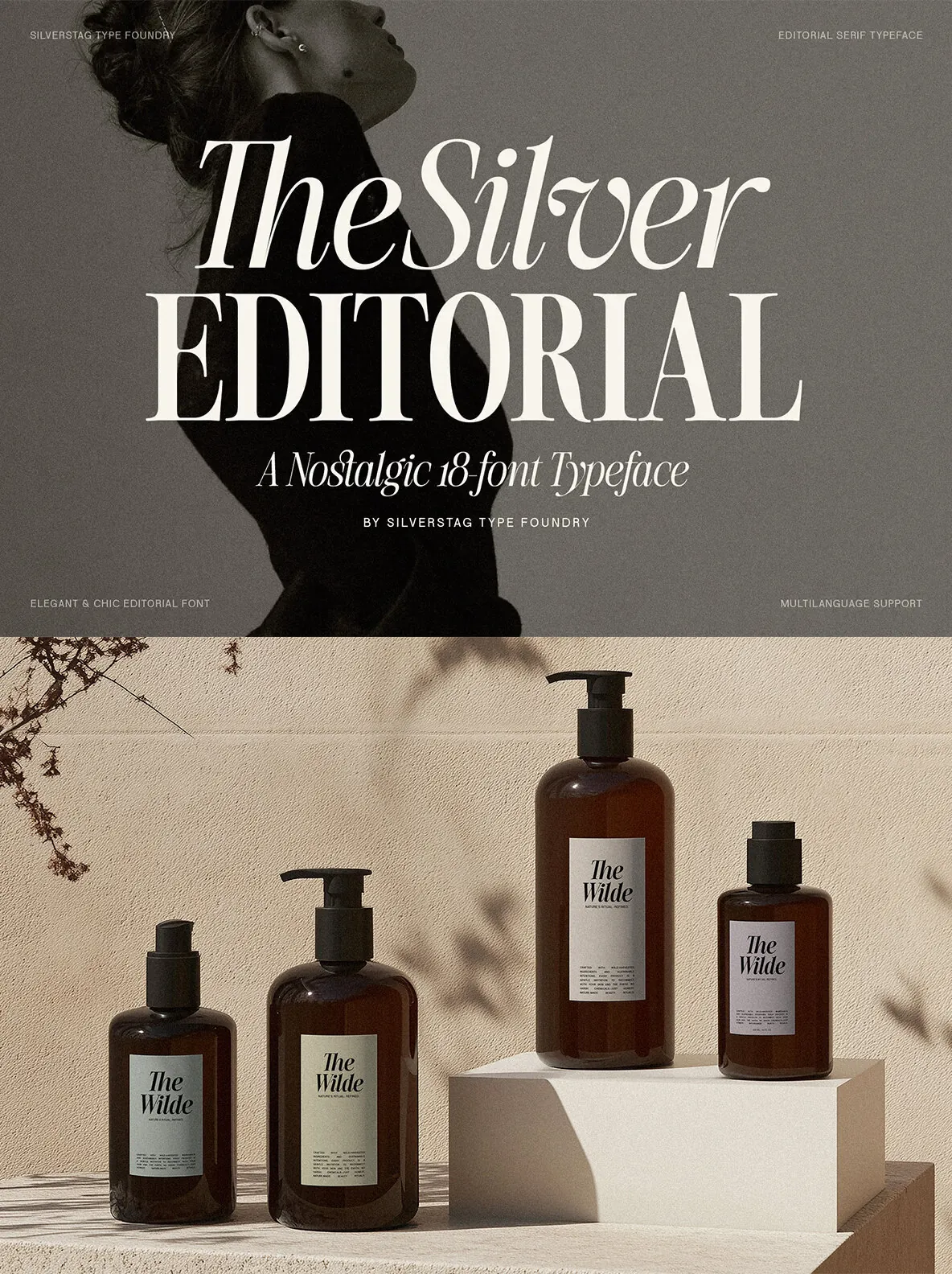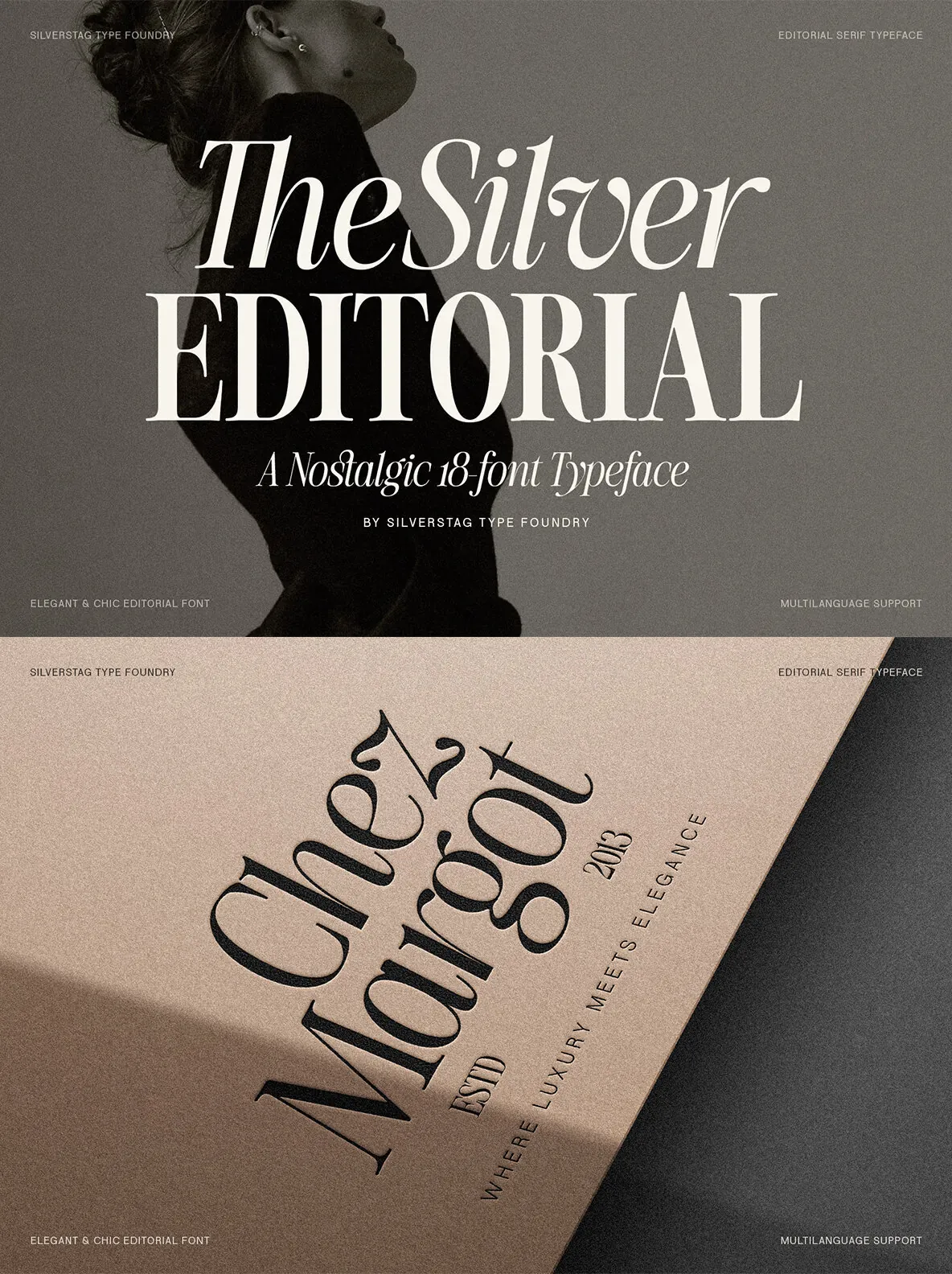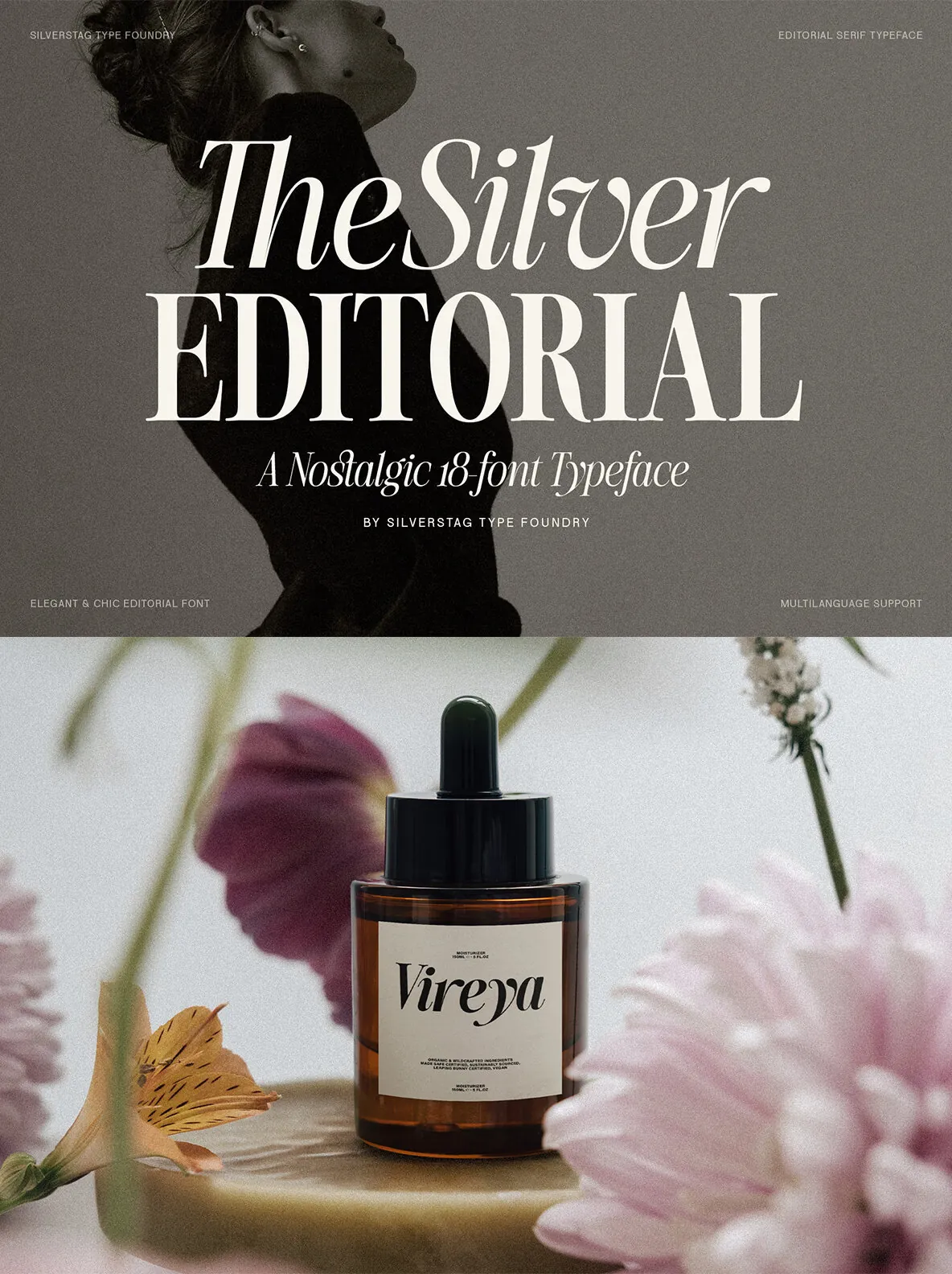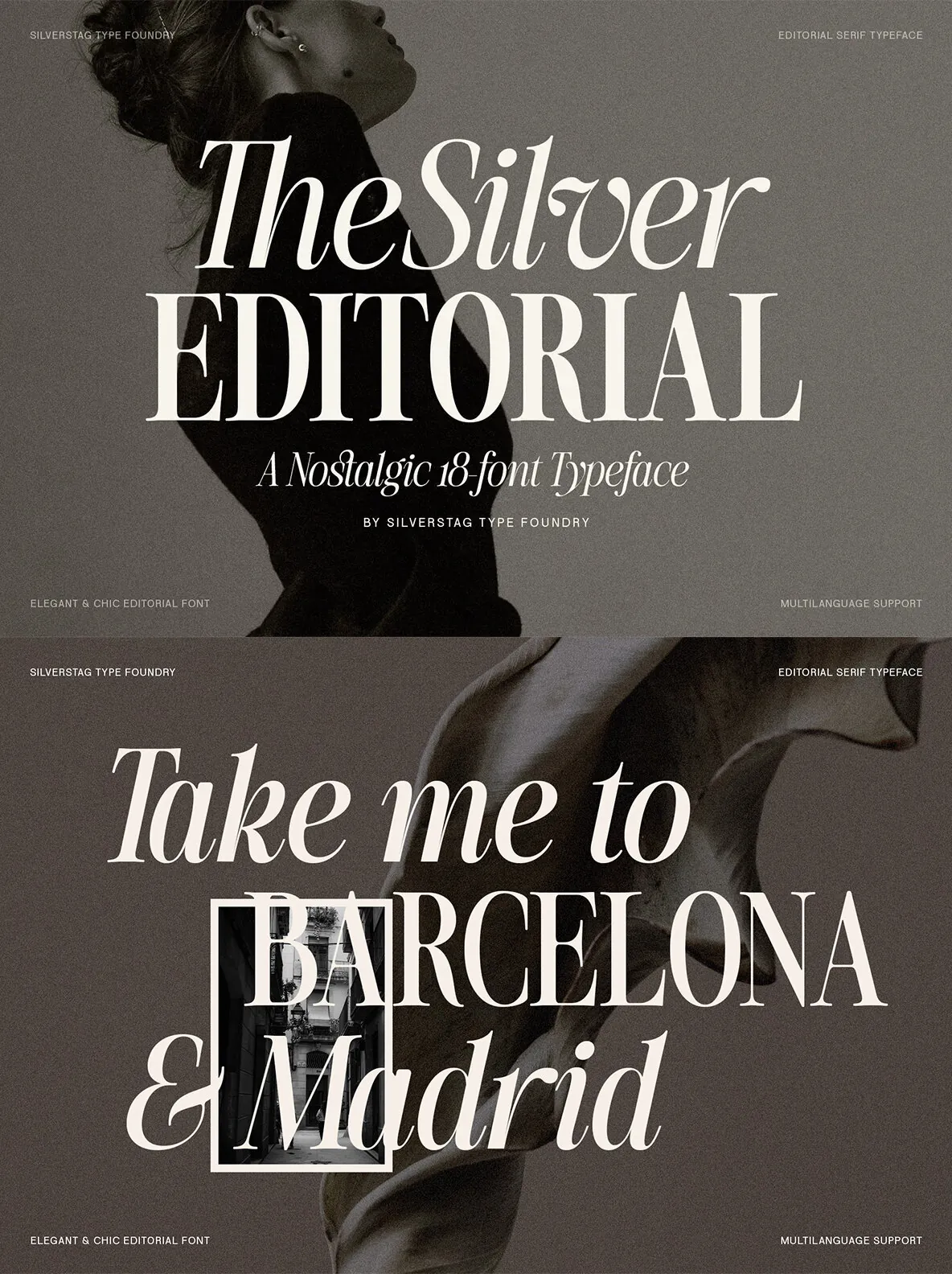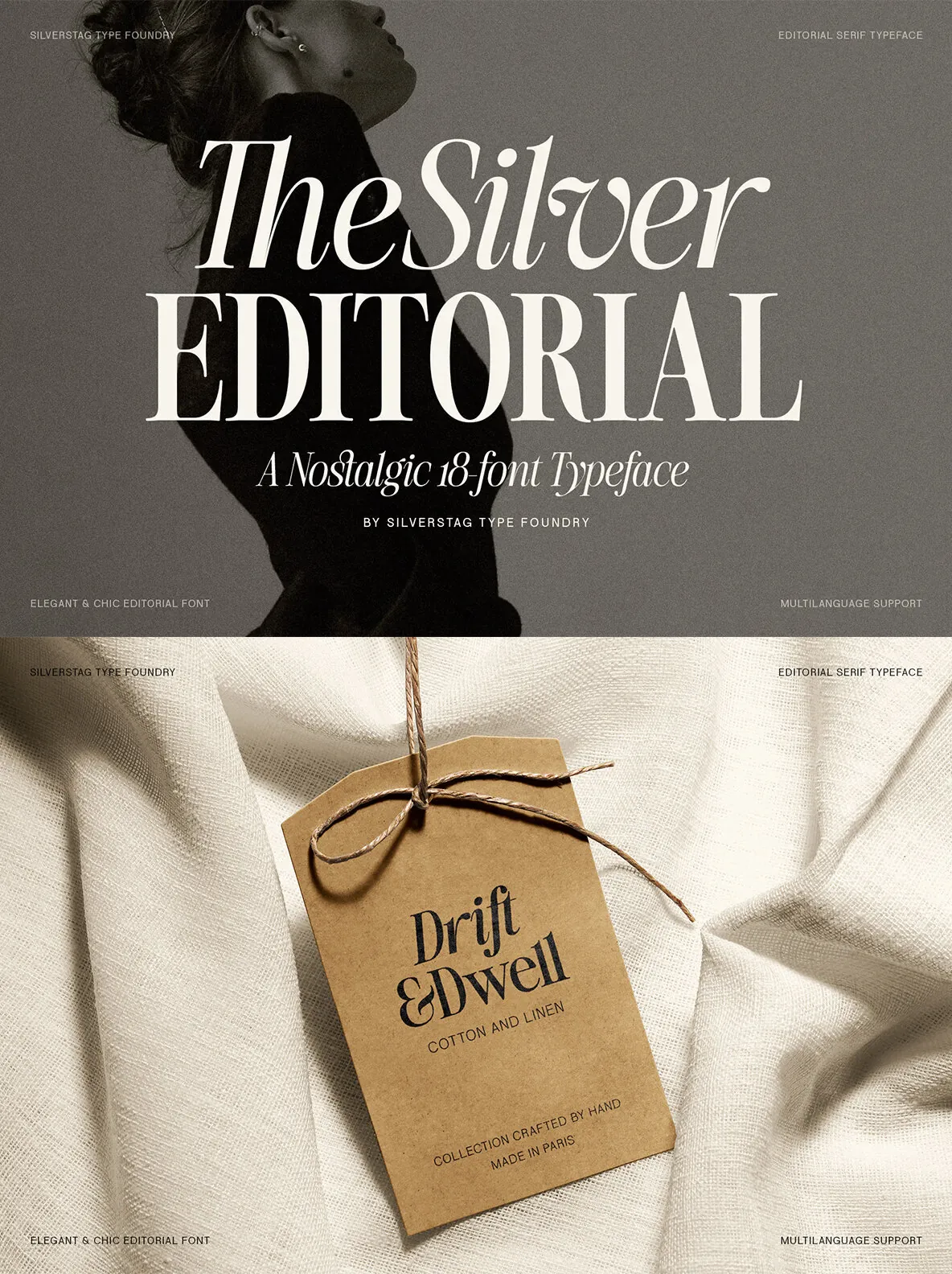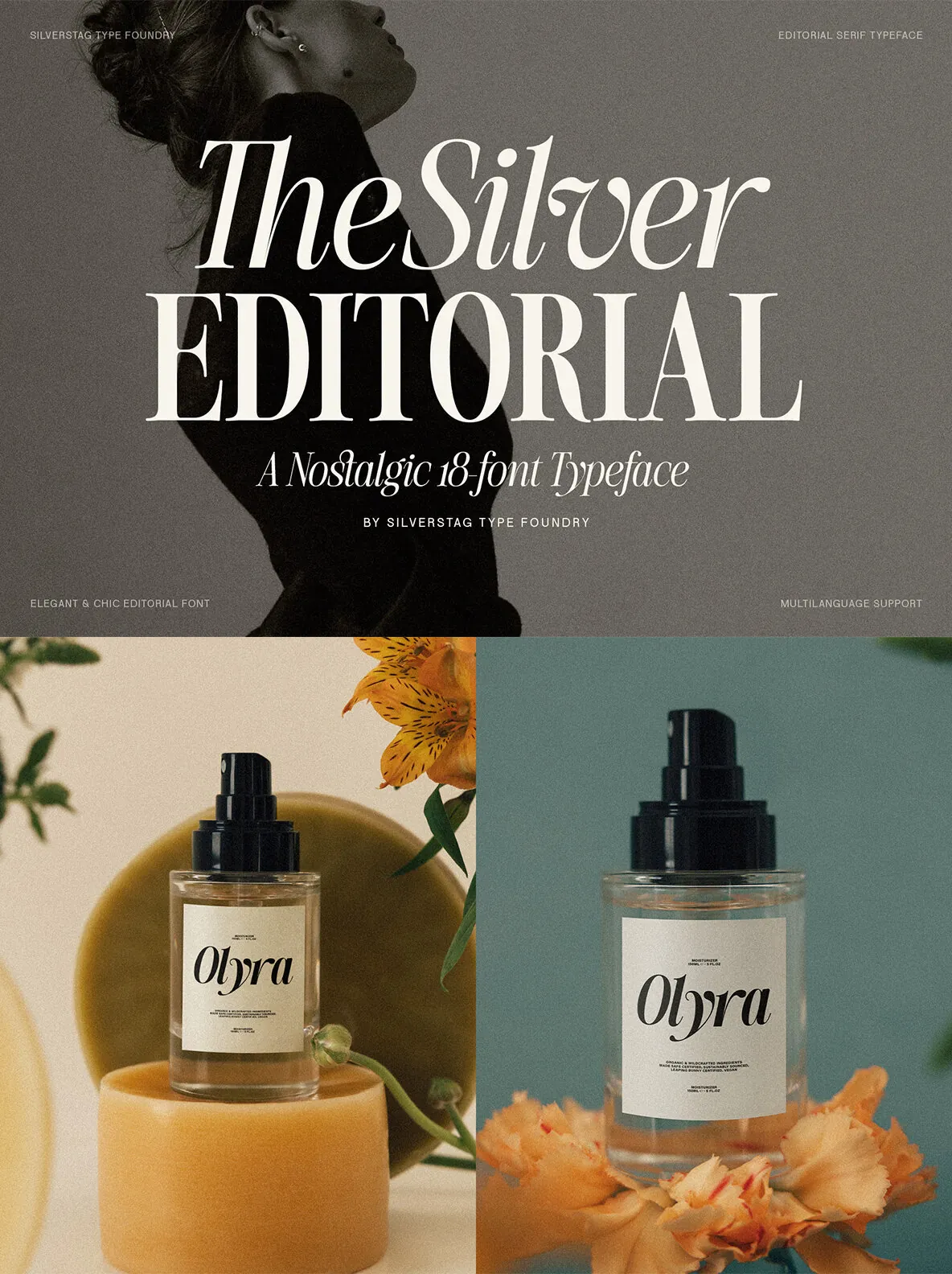
The Silver Editorial — 80s Fashion, Sharpened
The Silver Editorial is more refined and versatile than ever. It now comes as an expansive typographic system of 18 fonts, including 9 weights and italics. Built for beauty and functionality, it stays dependable across real design workflows. Infused with the spirit of iconic 1980s typefaces, it brings a confident, modern sophistication to brand and editorial work.
Channeling the bold, expressive serifs seen in high-fashion magazines of the 80s, this typeface holds on to vintage charm while meeting contemporary needs. It strips away excess for a polished form suited to the digital era. The Silver Editorial’s strength is its command over headlines and its smooth move into elegant body copy, with dynamic italics that add an artistic touch. It also supports over 100 languages.
Where It Shines
Luxury branding & packaging
- Offers timeless elegance and instant visual appeal for high-end product lines.
Editorial design - Thrives in layouts, balancing dramatic presence with readability for both print and digital publications.
Web typography - Maintains personality and user experience, excelling in headings and subheadings on modern websites.
Posters, portfolios & moodboards - Enhances storytelling with eye-catching titles and expressive photography.
Logo design - Provides the right flair for bespoke logotypes, ensuring brand identity stands out.